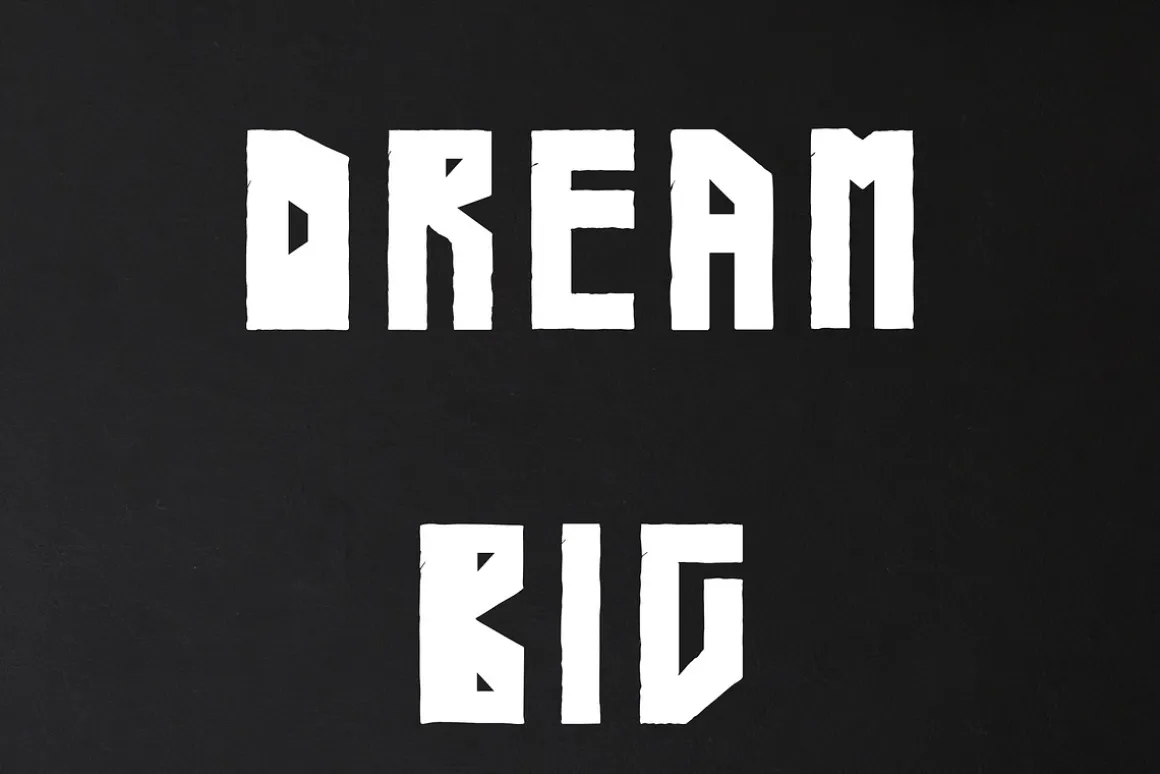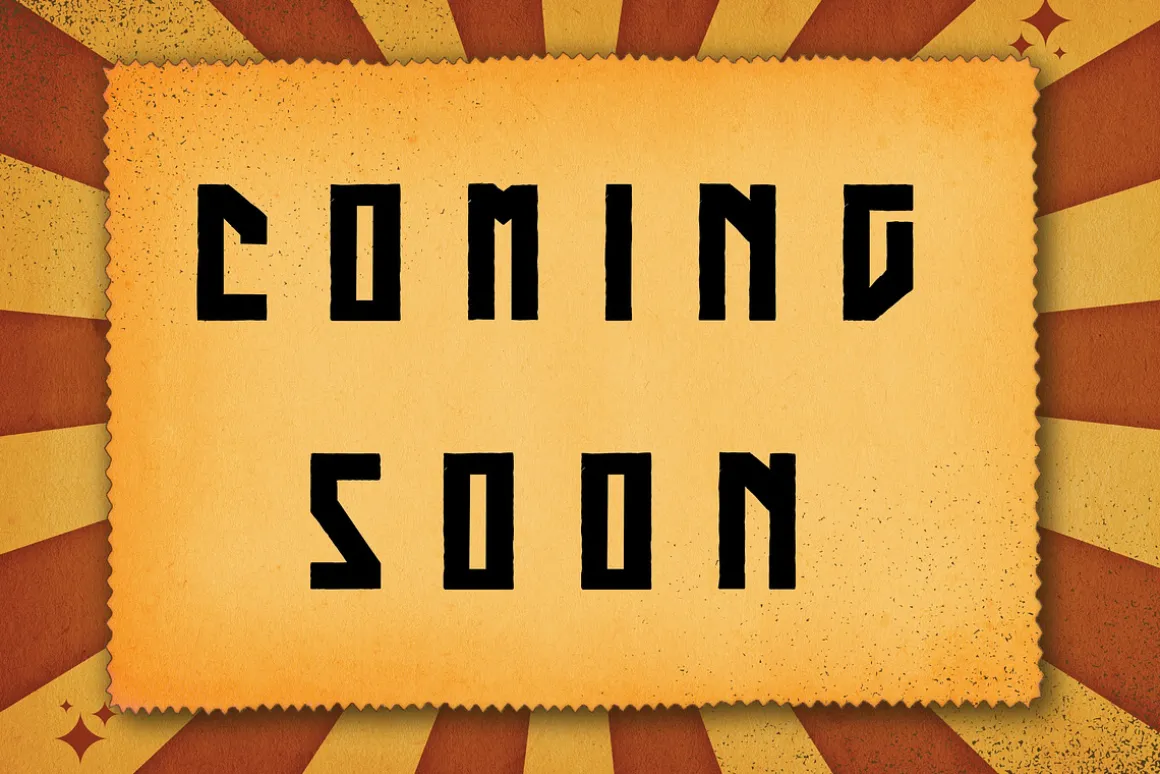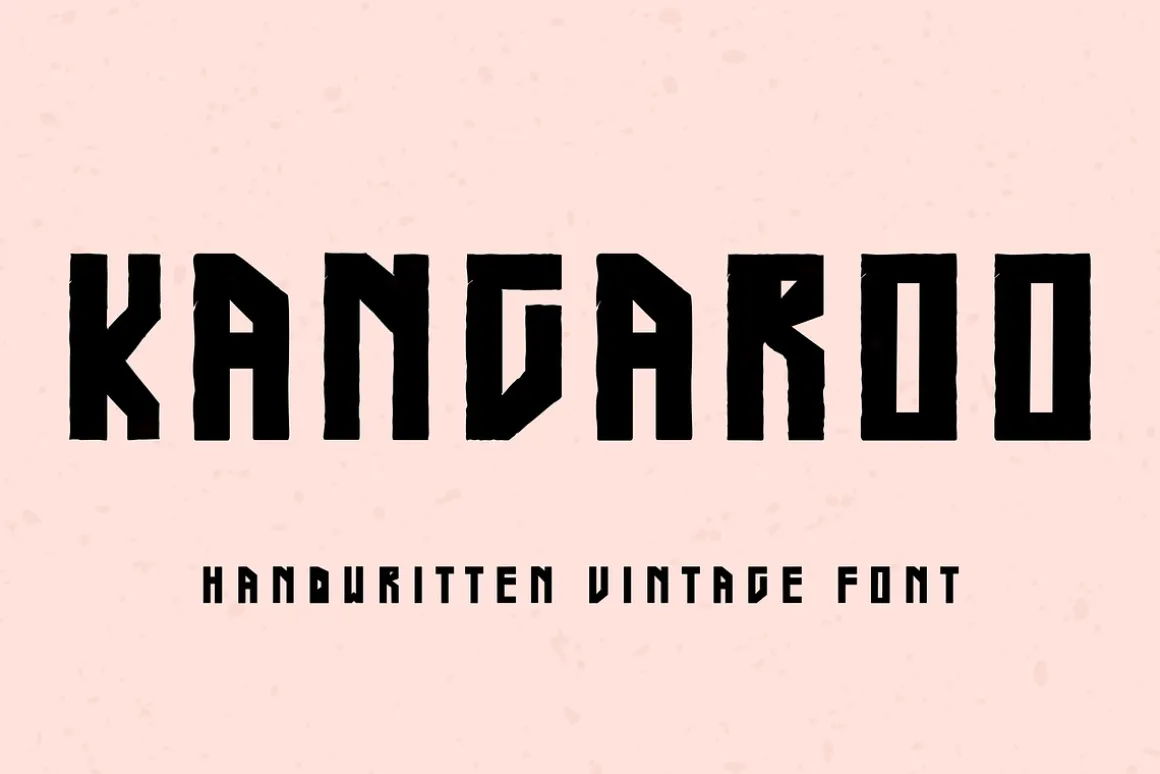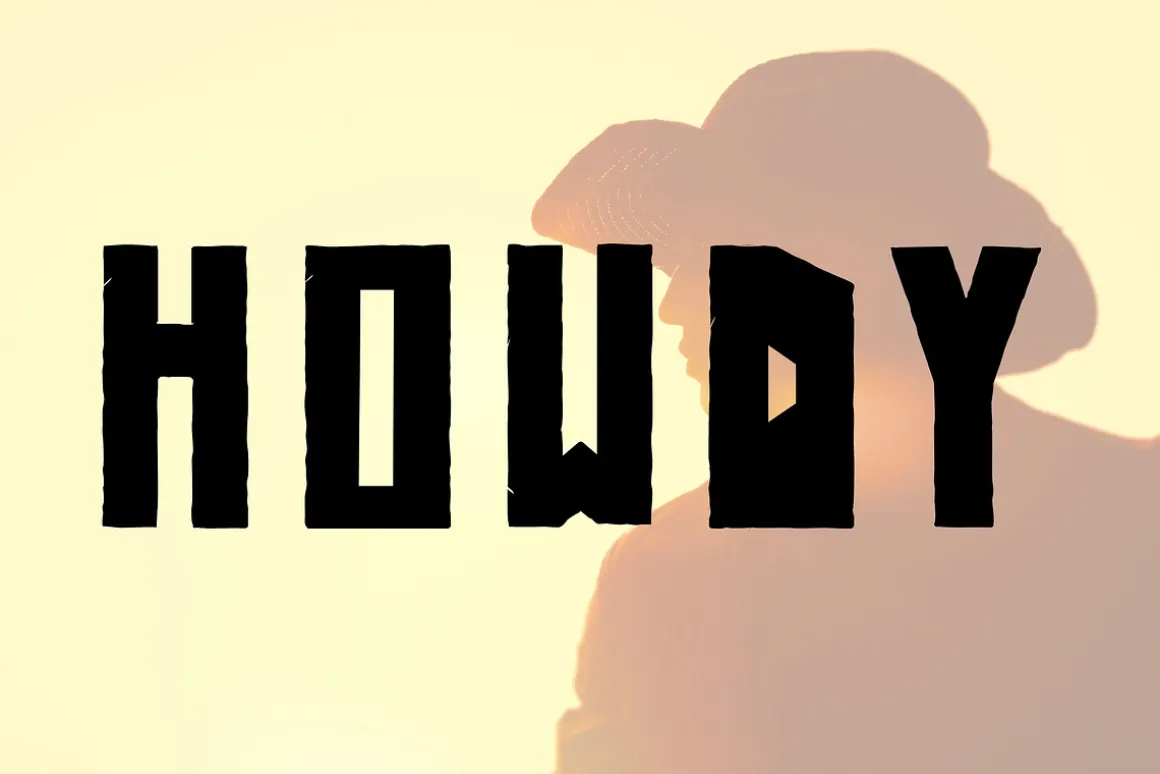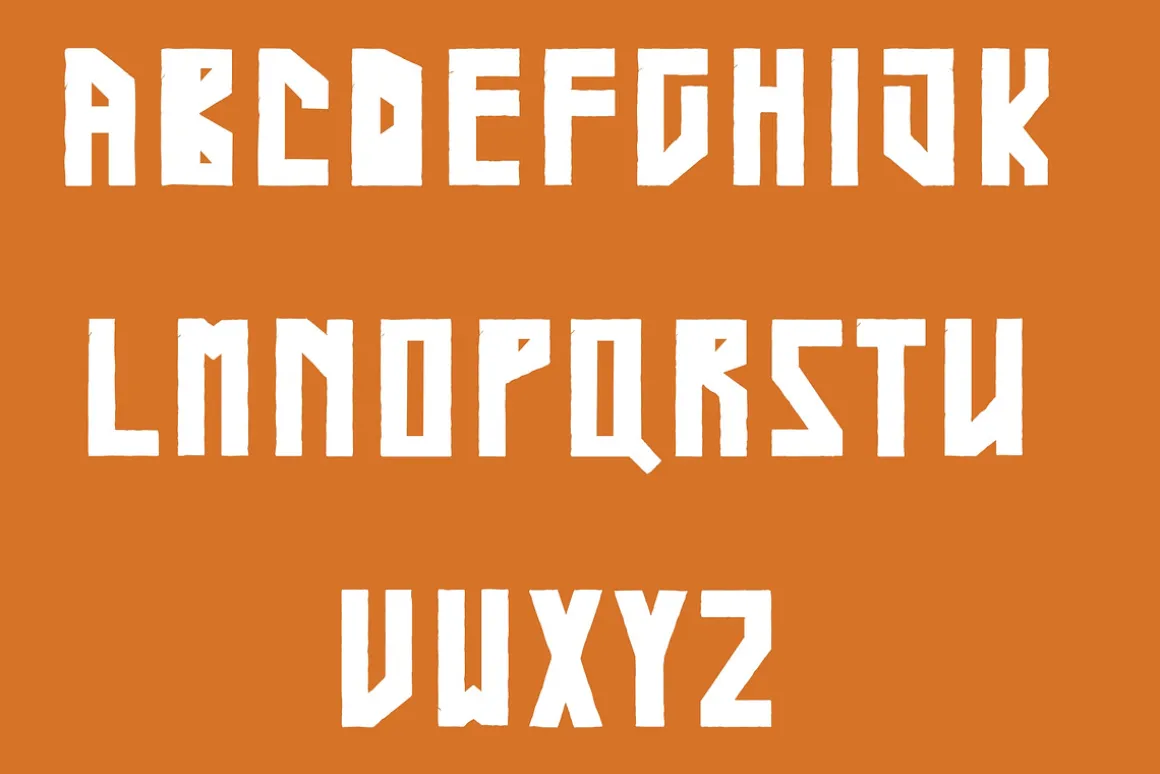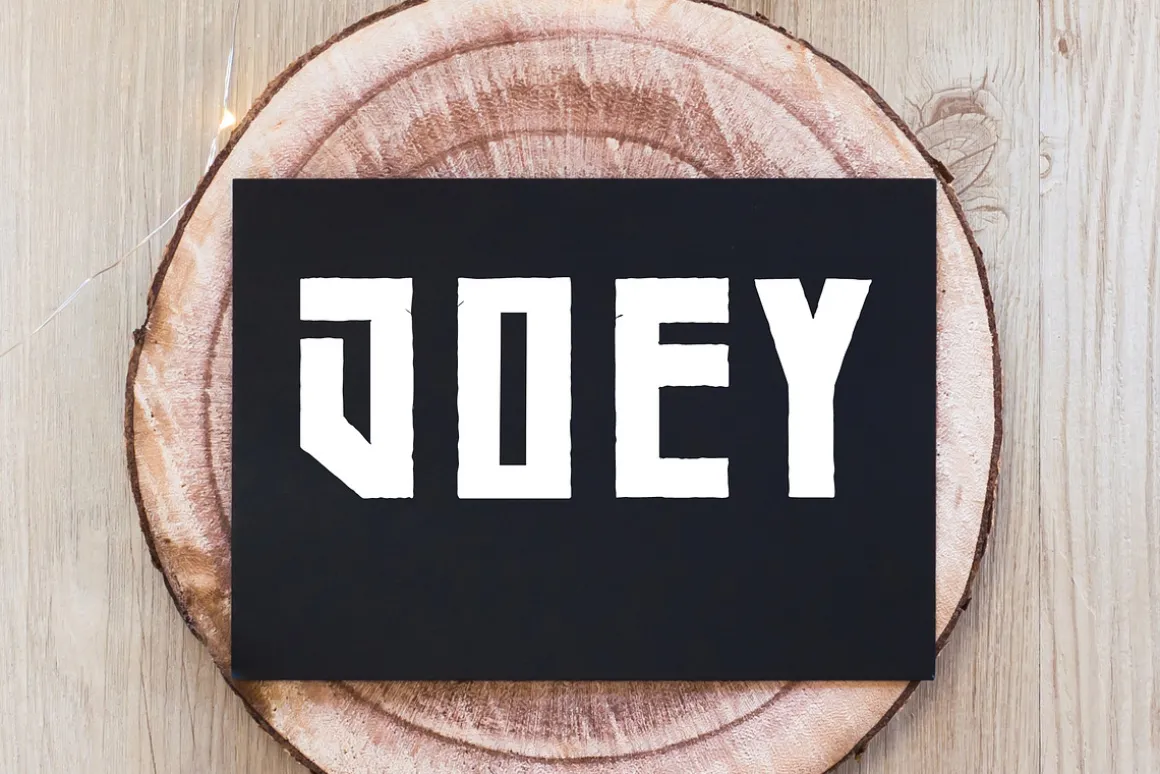
Kangaroo- Handwritten vintage font
A font with vintage vibes!
It’s perfect for your cricut projects, banners, advertisements, shirts, vinyl, stickers, western graphic tees, doormats, mugs, logos, signs, sweatshirts and more!
All caps font ( Use lowercase for distressed font).